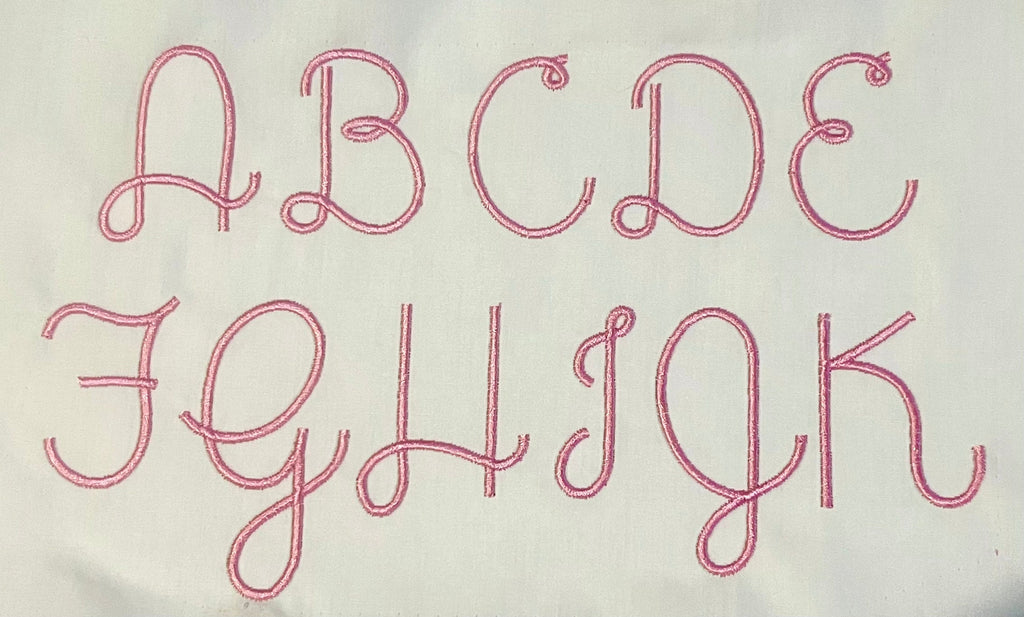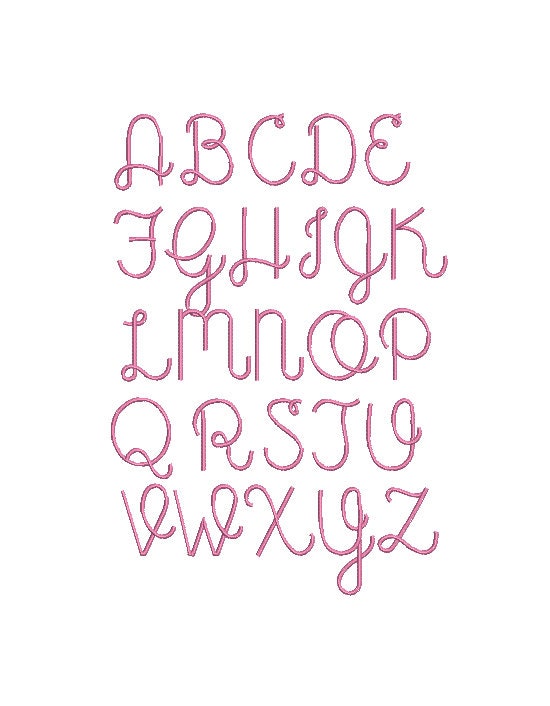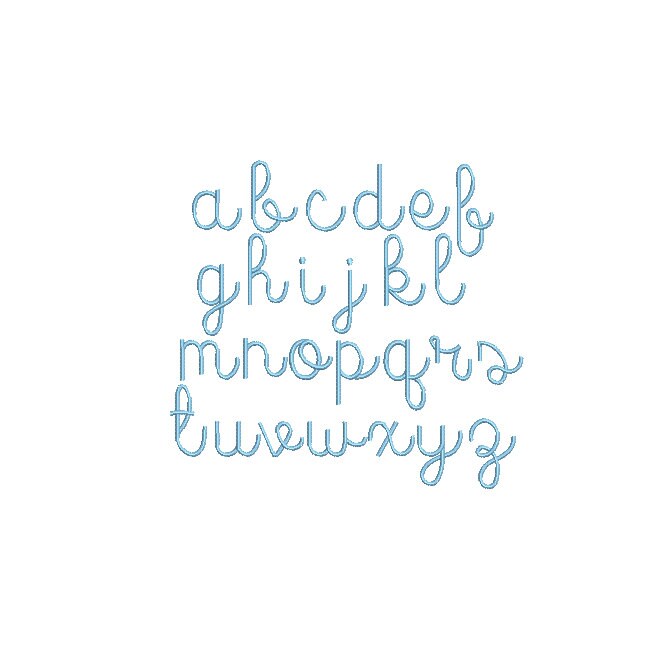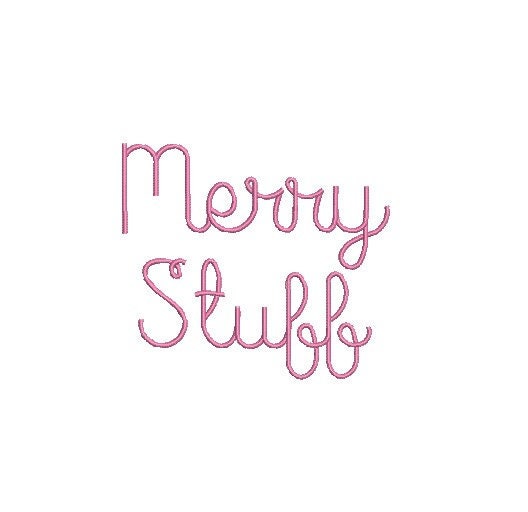
Satin Script Cursive Font Machine Embroidery Design 3 Sizes BX PES DST+++ Incl Digital Instant Download
This is a DIGITAL instant download only of a fun satin script font machine embroidery design offered in 3 sizes, 8 formats plus BX! Crazy cute and perfect for embroidering on just about anything a girlie girl could want!